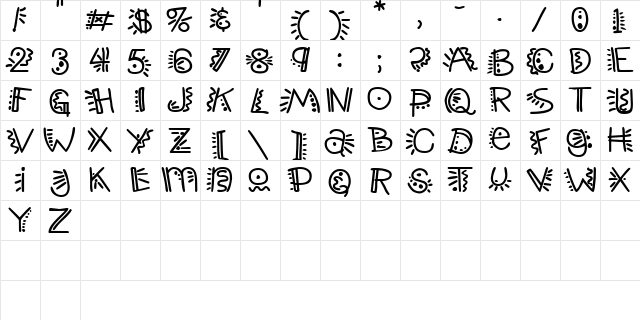
ManicPopThrill Regular
Design Context for ManicPopThrill Typeface
ManicPopThrill is a composed and adaptable typeface that performs quietly and consistently across a wide range of design contexts.